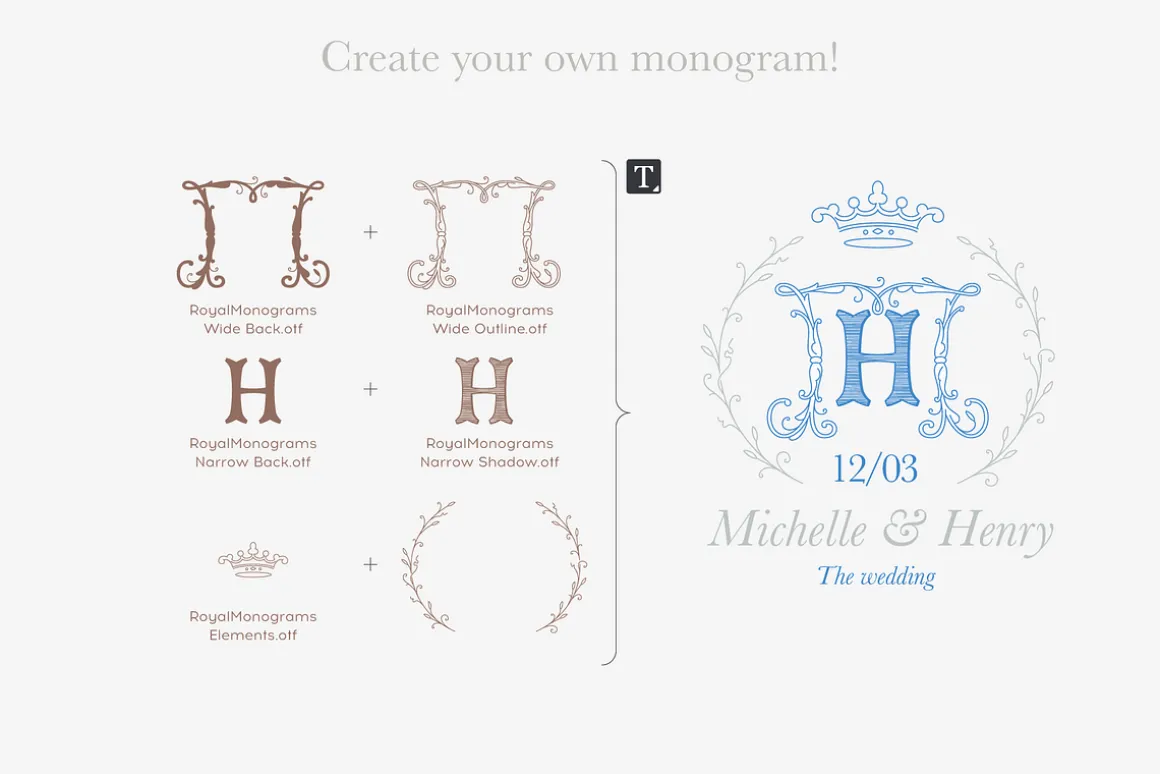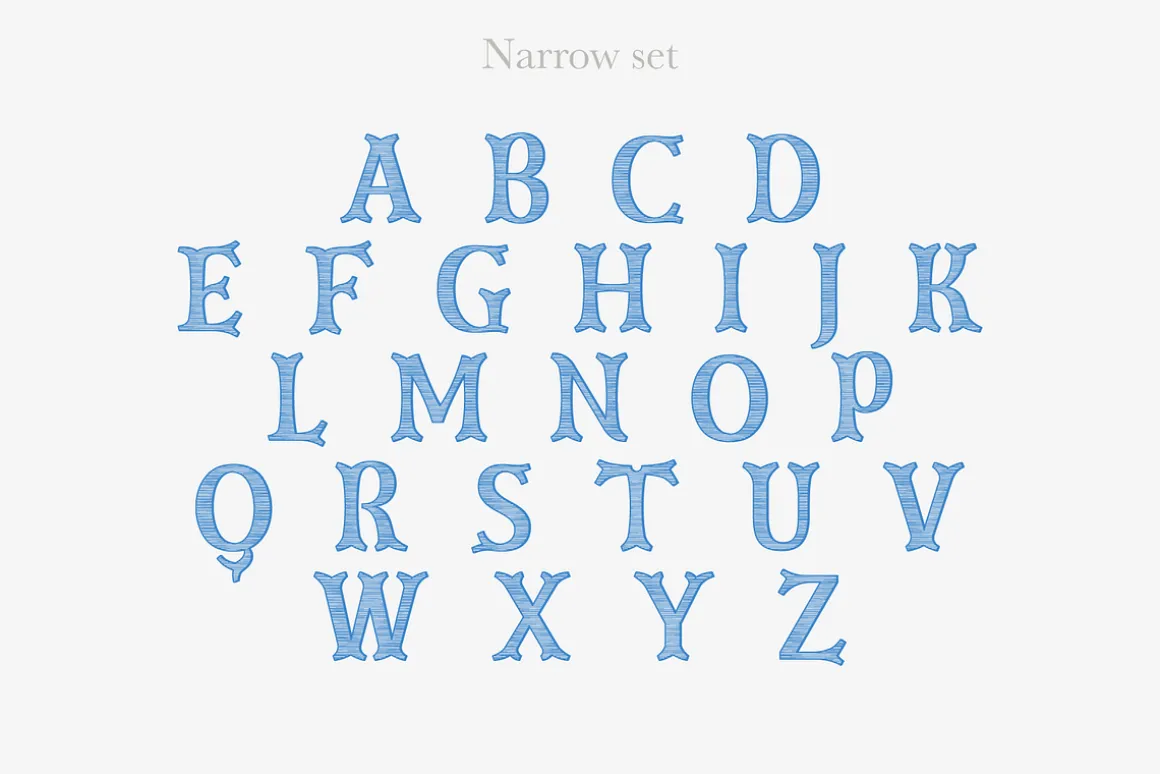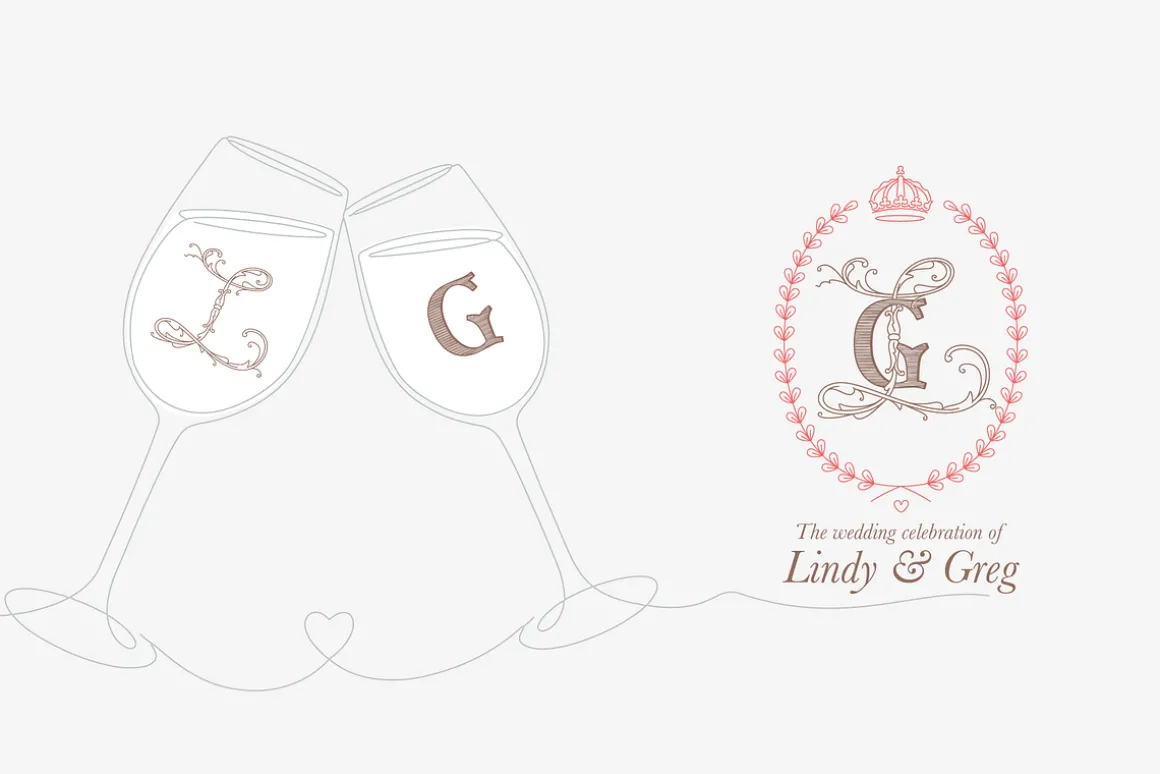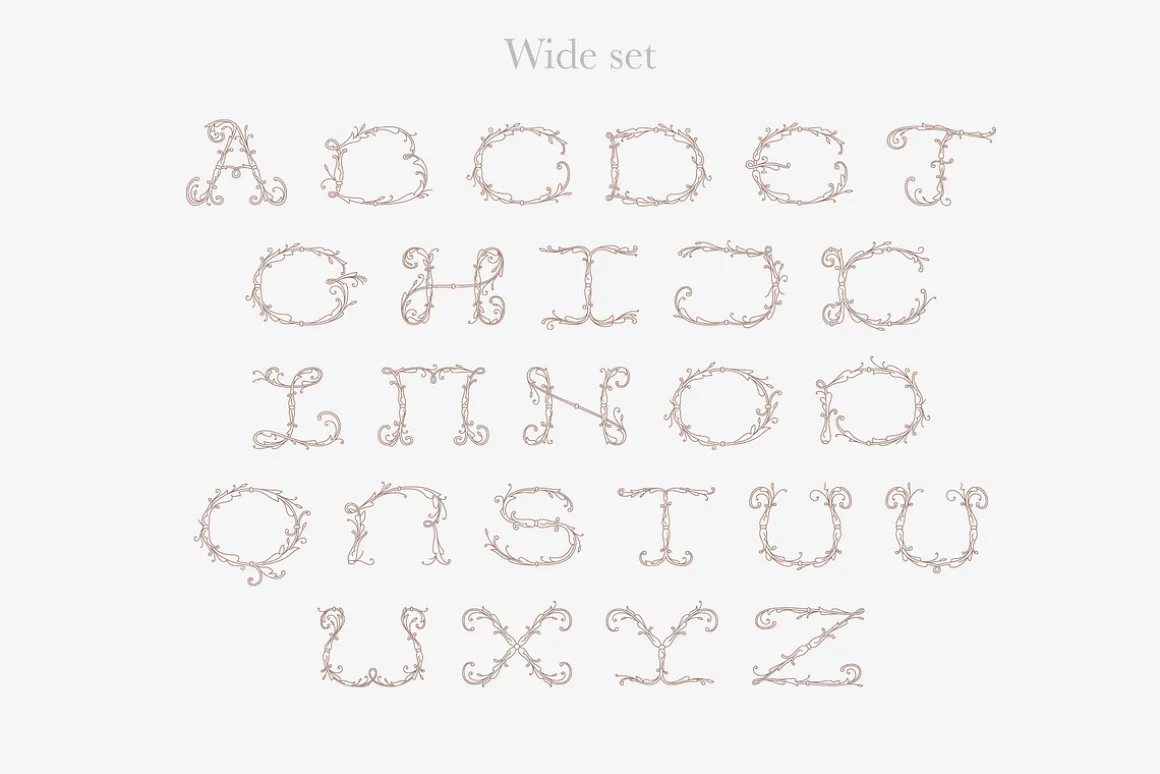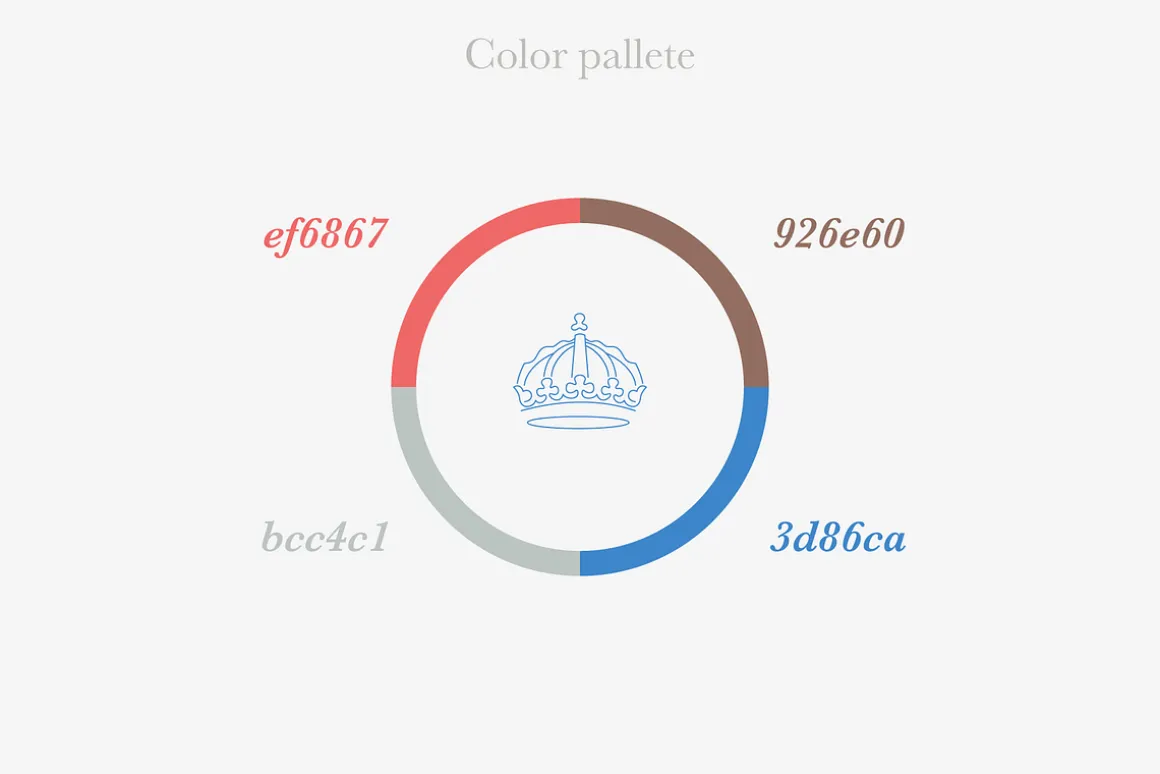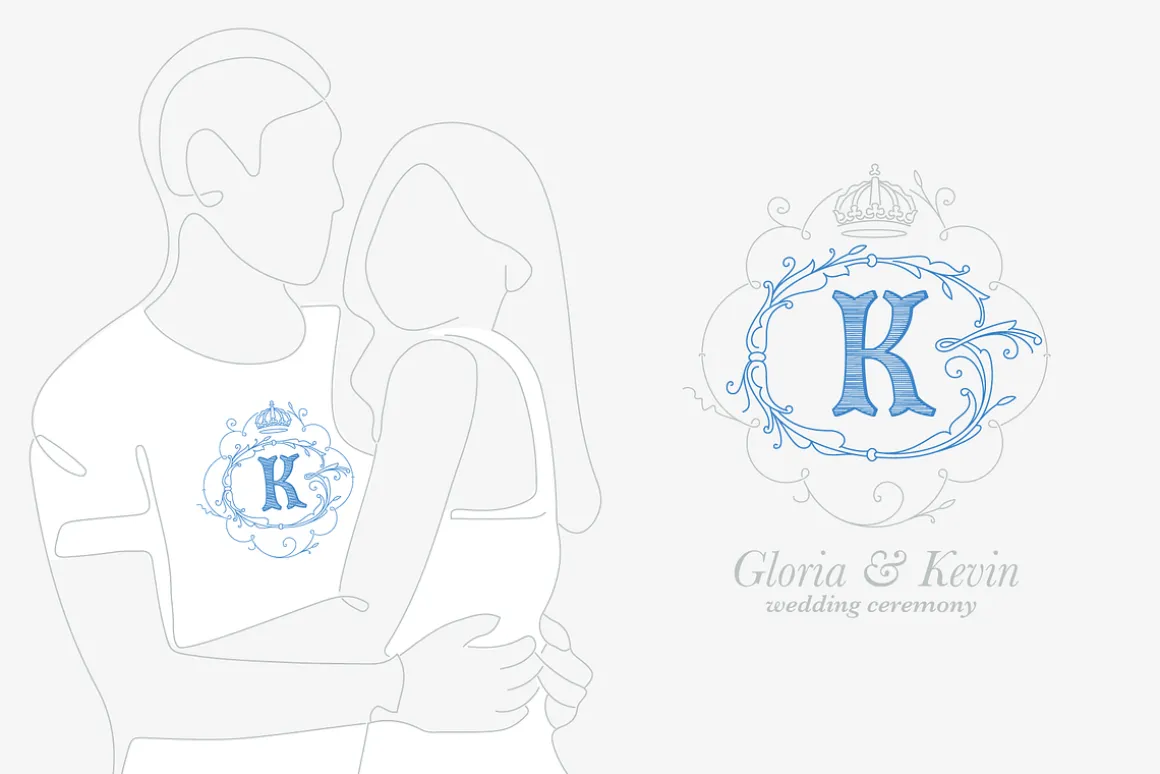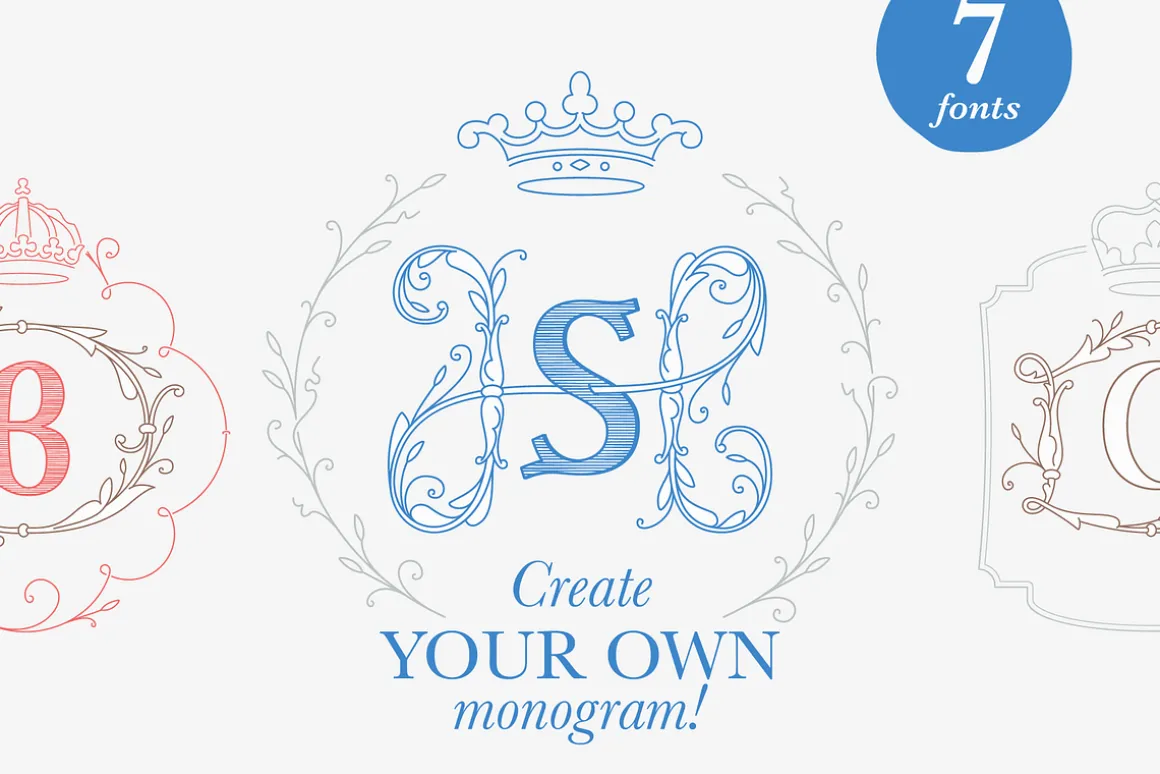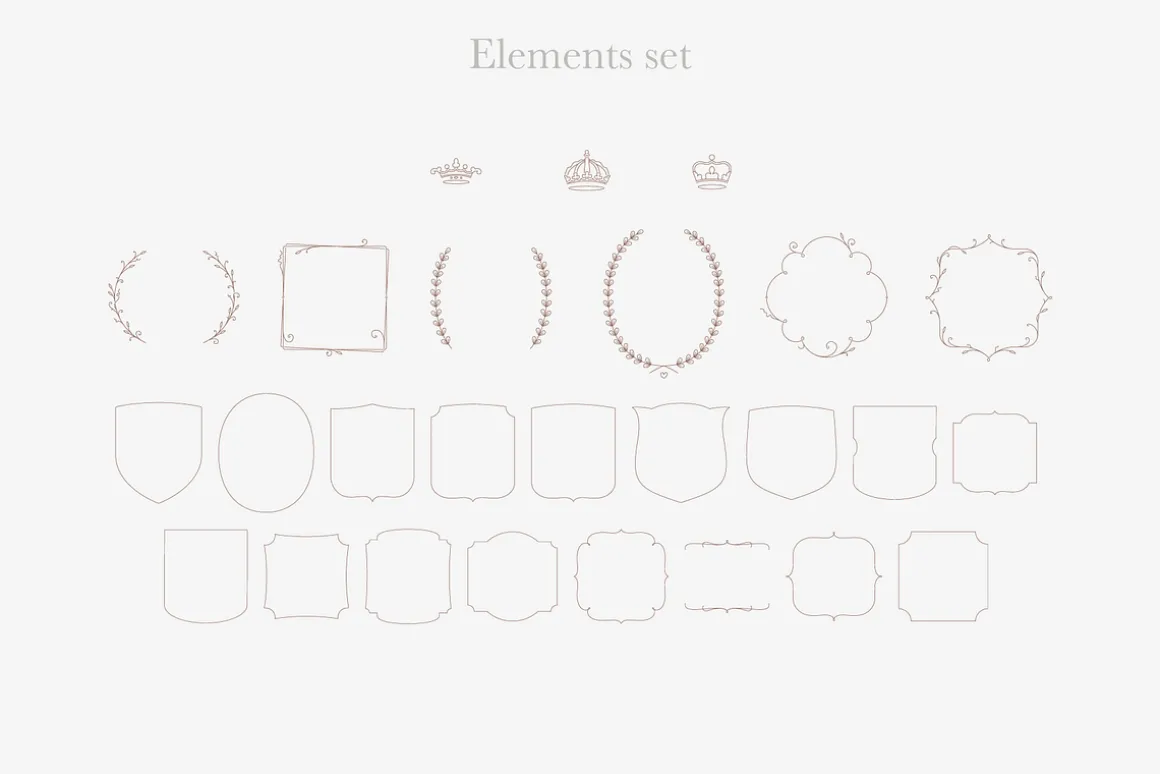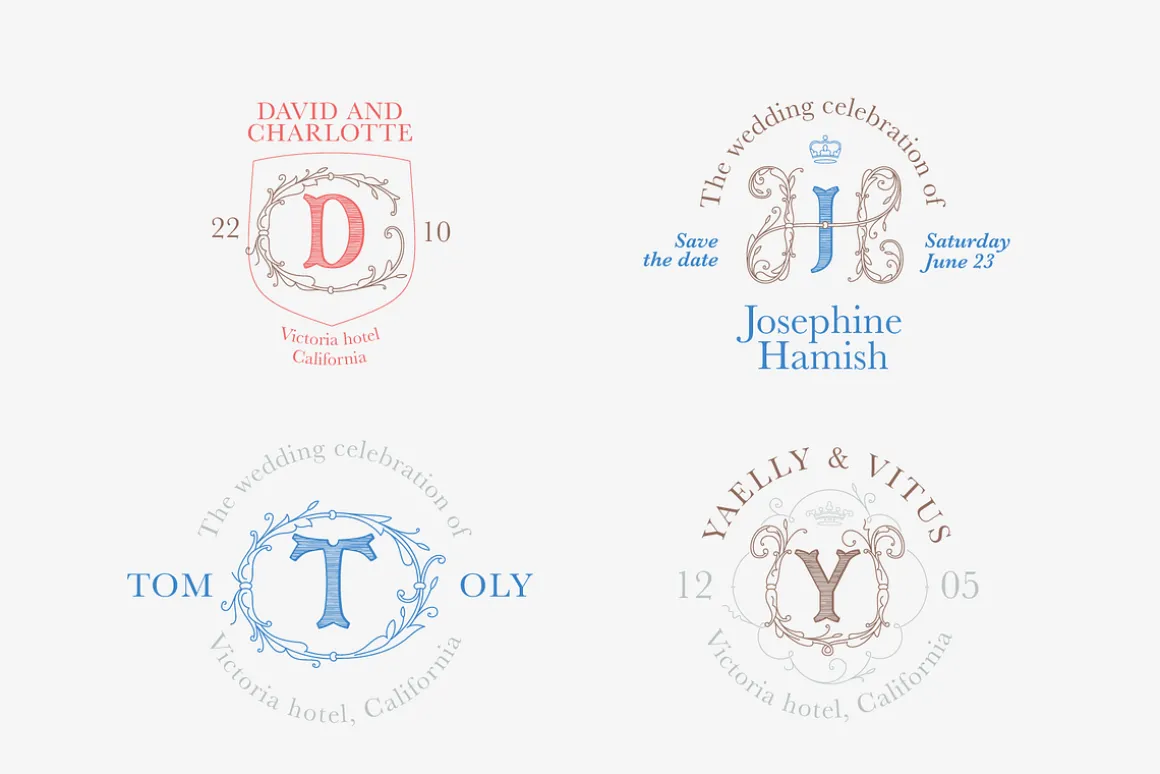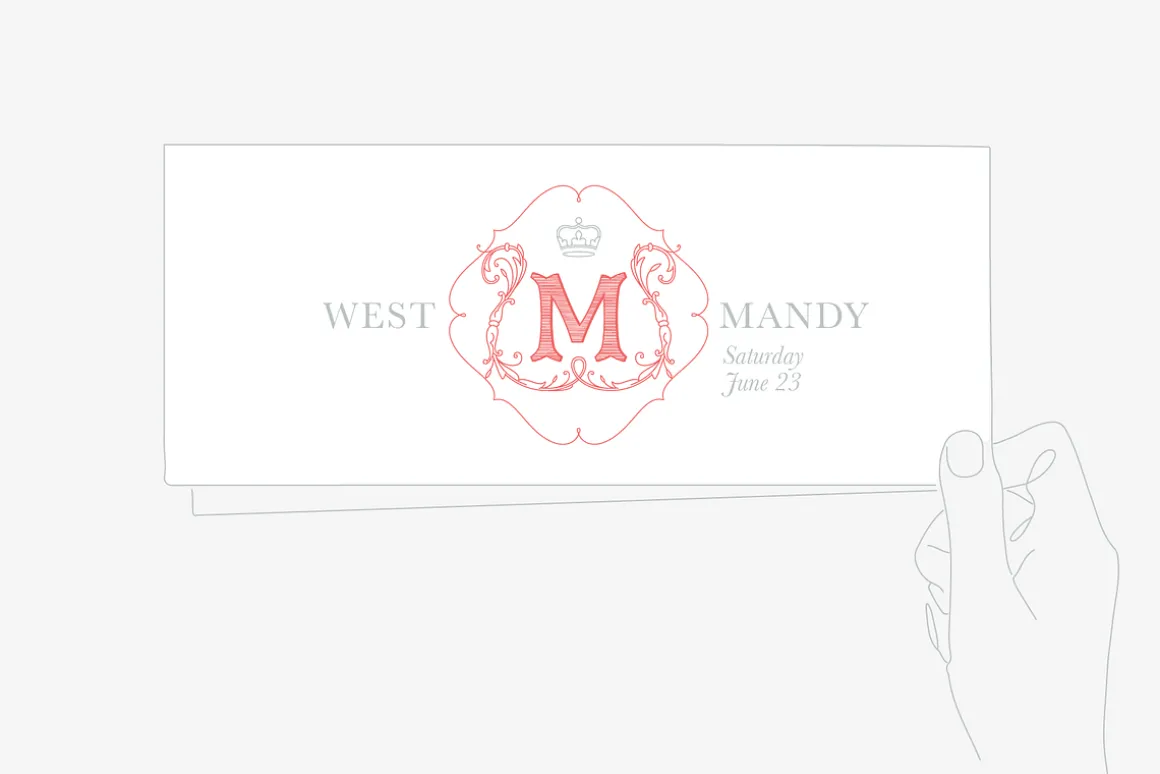
Royal Monogram is a family of fonts in an elegant historical style. Perfect for decorating your wedding or family celebration. You can create your own monogram by combining the letters as you wish.
- Wide and Narrow capitals fonts
- Elements set